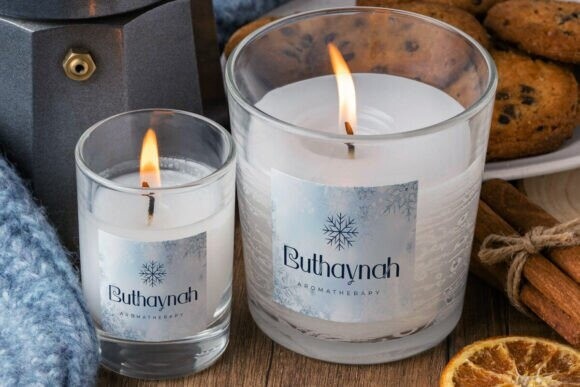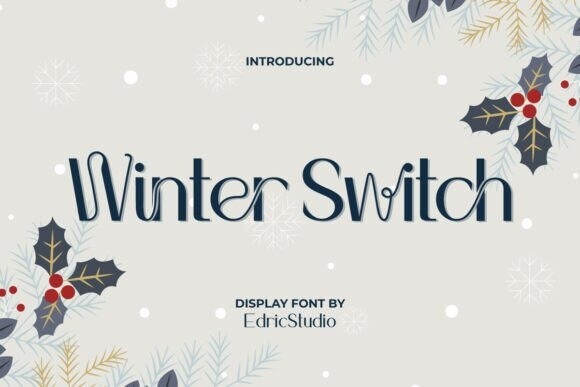
Winter Switch Font
Designer: EdricStudio
Winter Switch Font is an elegant sans-serif display font inspired by the beauty of the winter season. This is a unique typeface that has indented lines on some of the characters making it stand out and will suit any industry, such as accessories, architecture, bakery and cake shop, café, clothing brand, entertainment, event or festival, fashion designer, film, handicraft, hot drink products, jewelry, photography, printing, publishing, restaurant, writer, and many more.